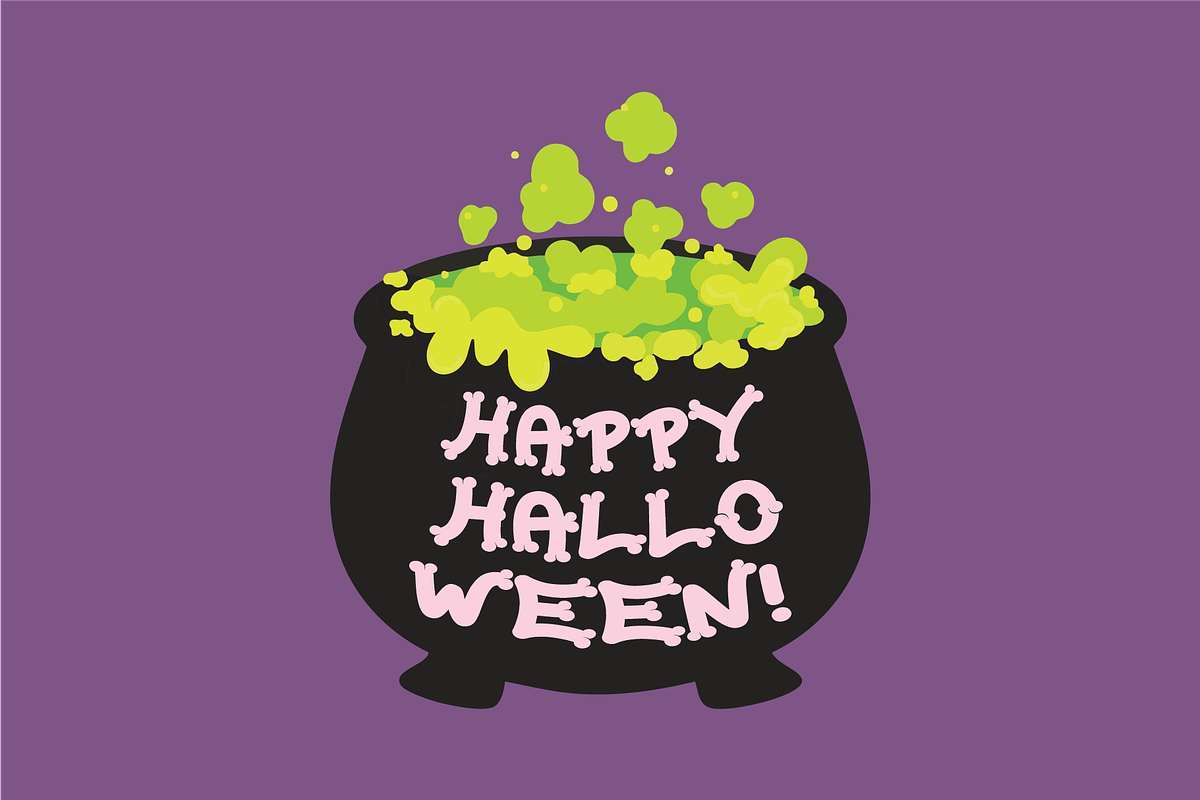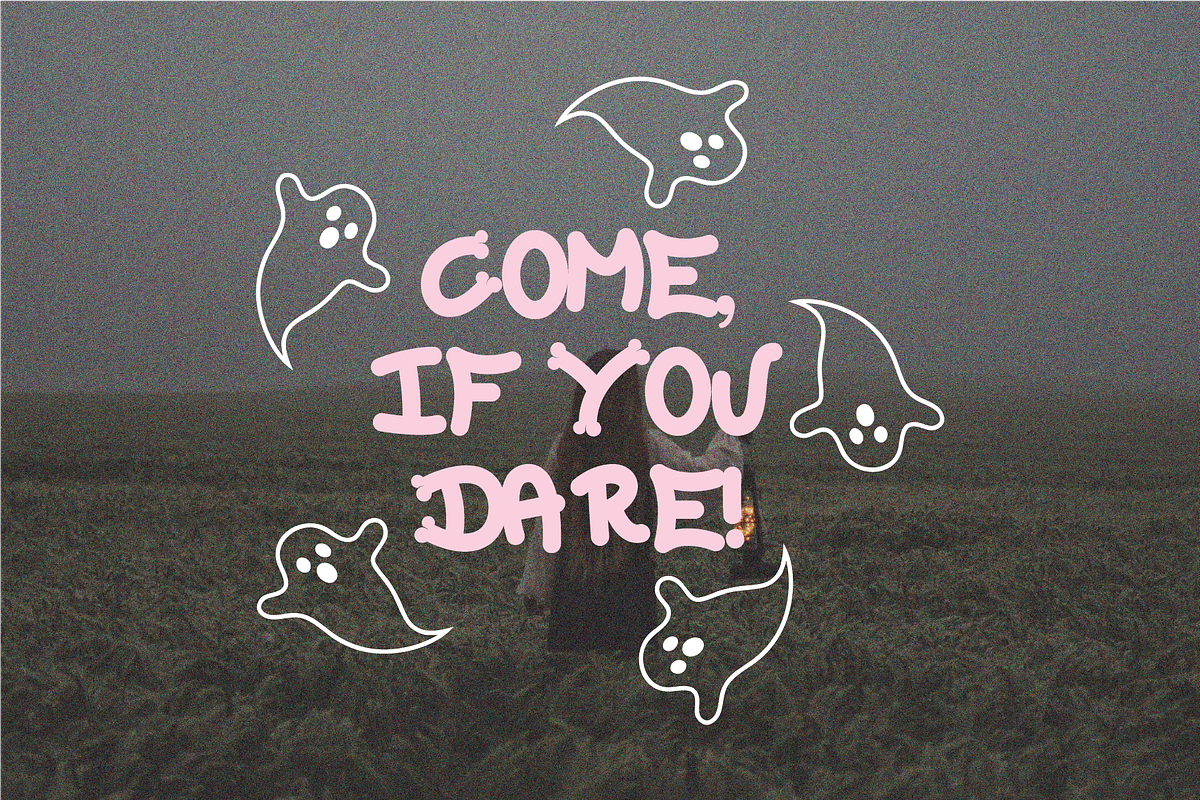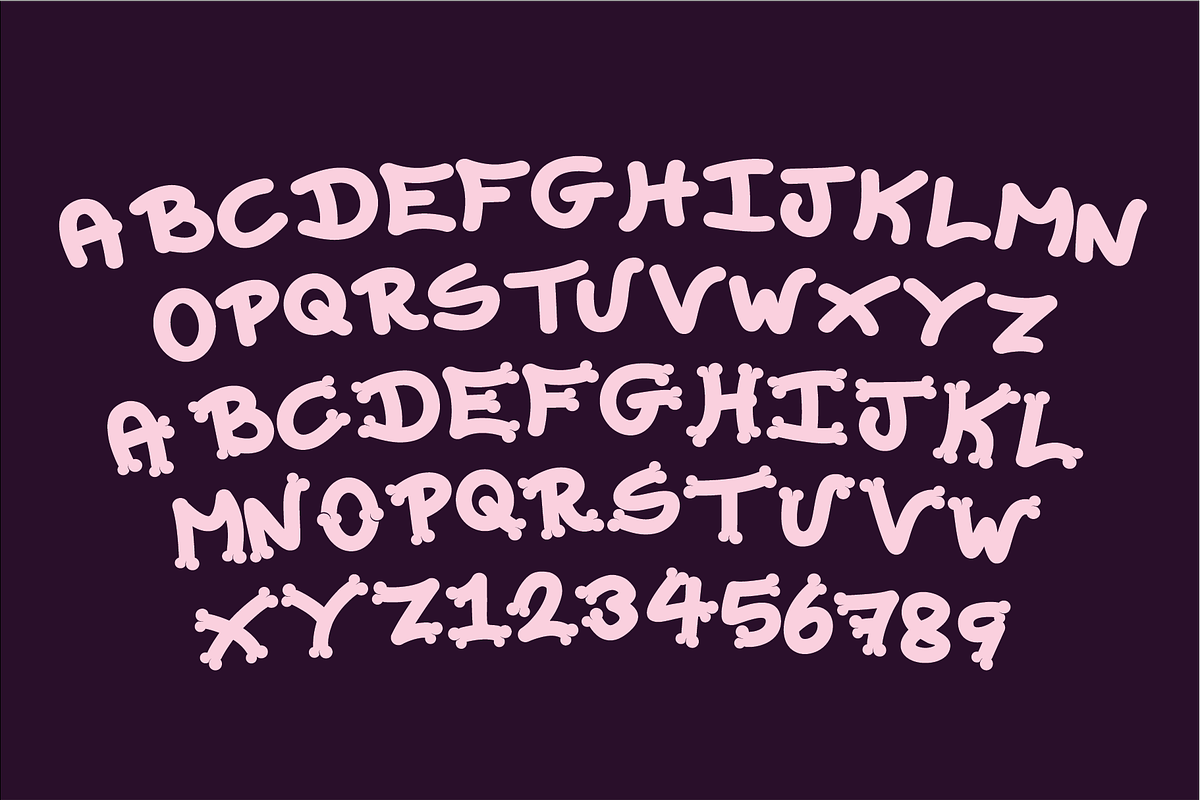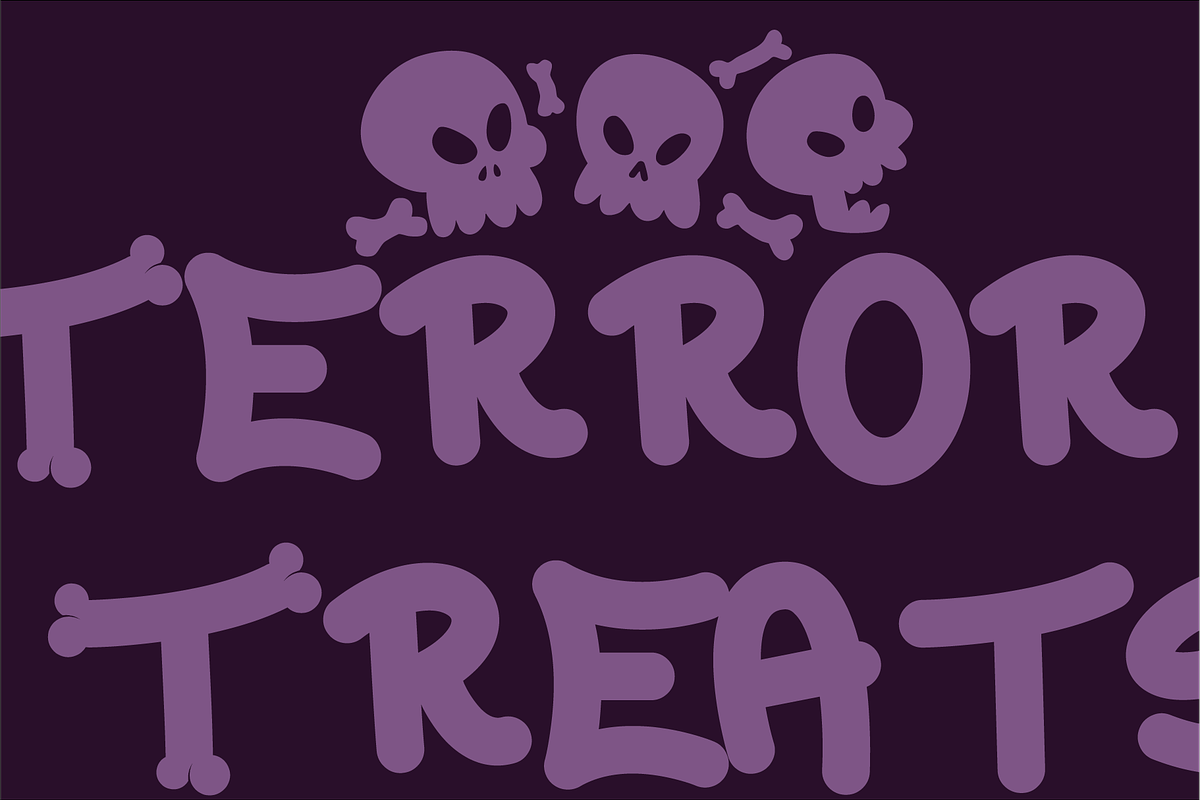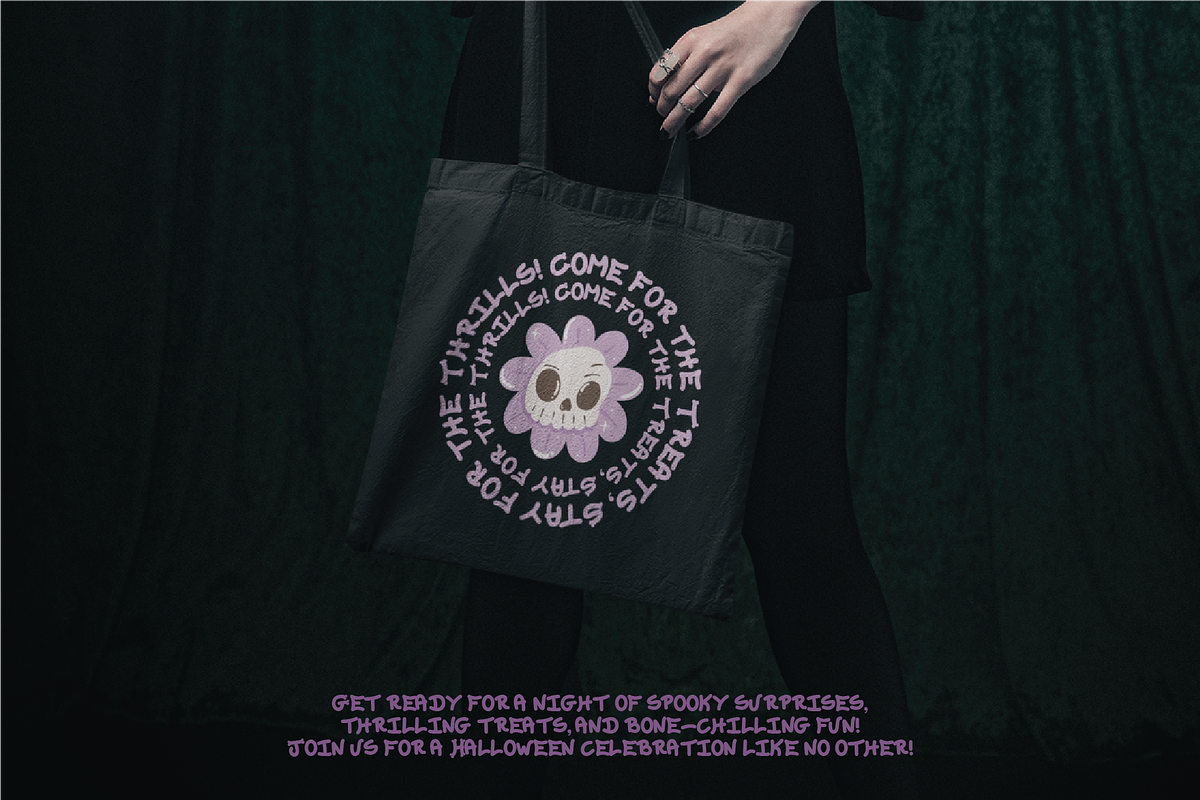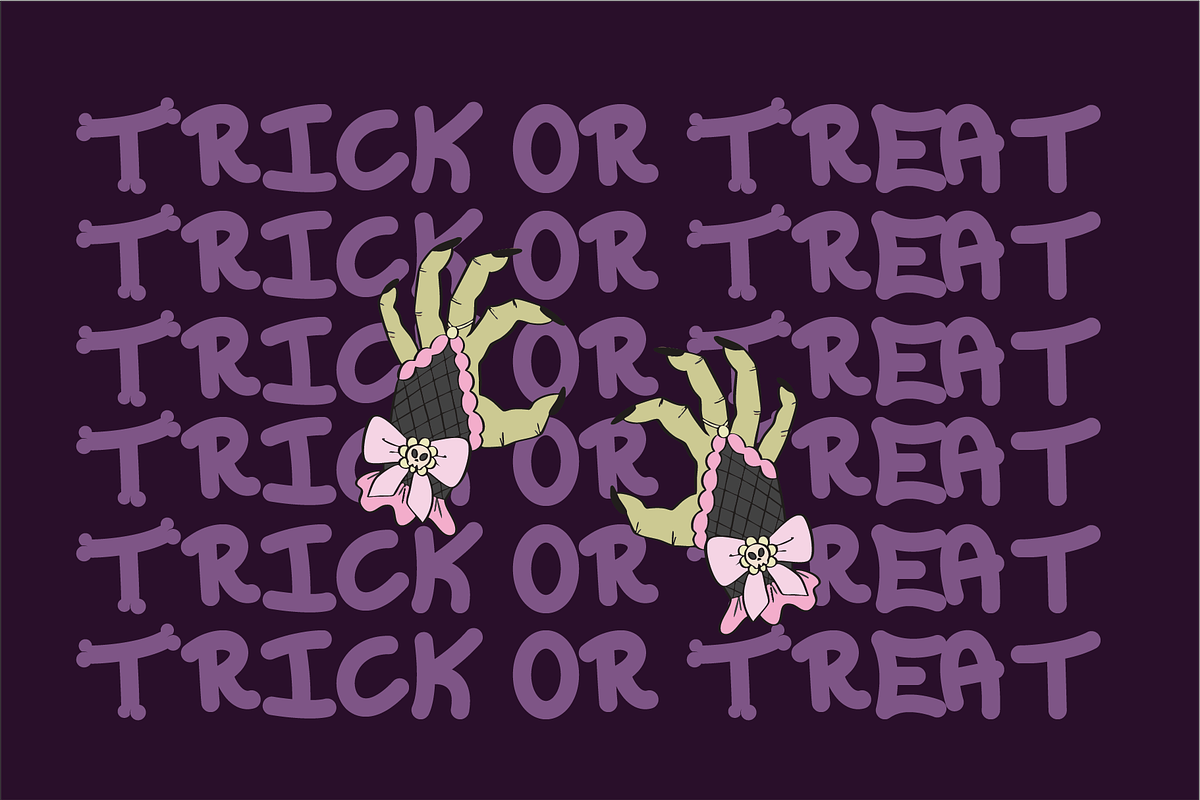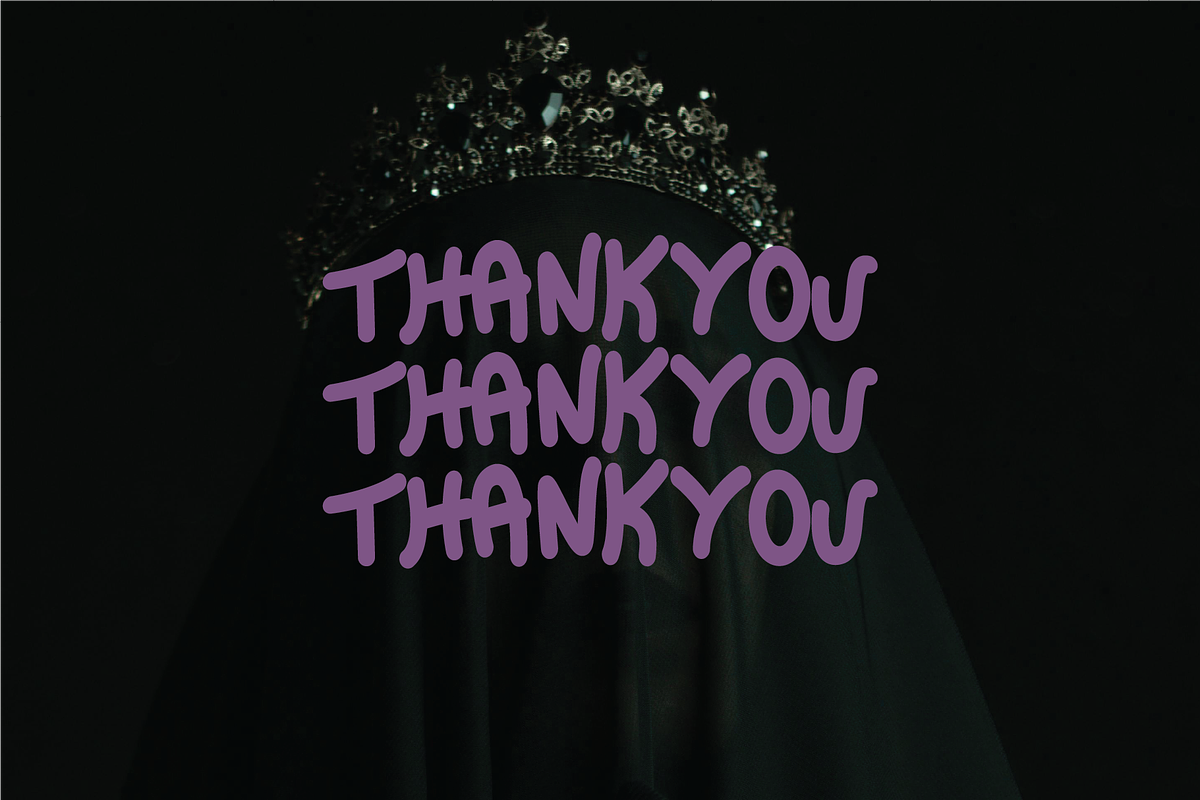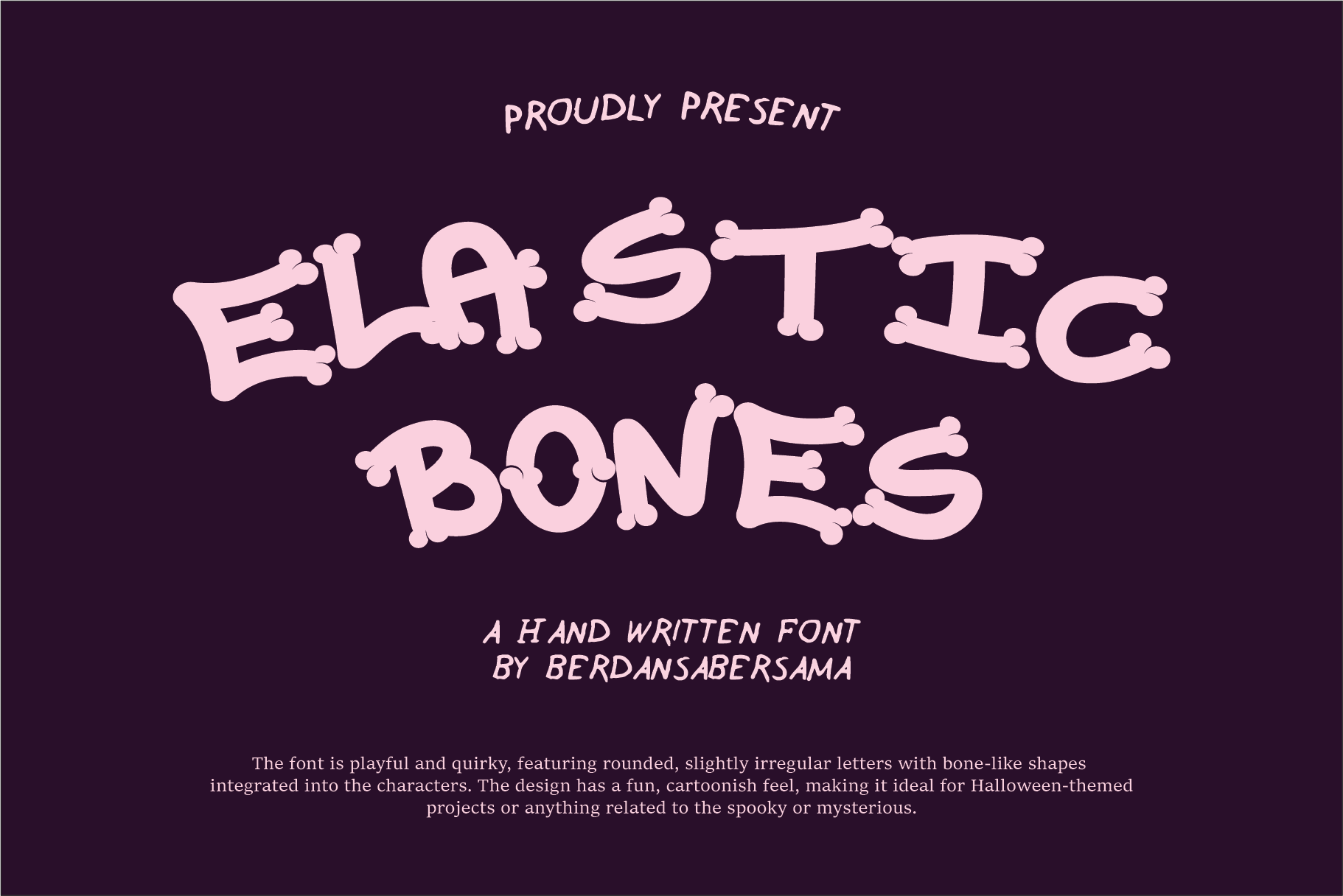
Elastic Bones - Halloween Font
Elastic Bones This font has a playful and spooky design, inspired by the shape of bones. The letters are rounded and flexible, giving them a cartoonish, elastic look while still keeping the eerie skeleton theme.